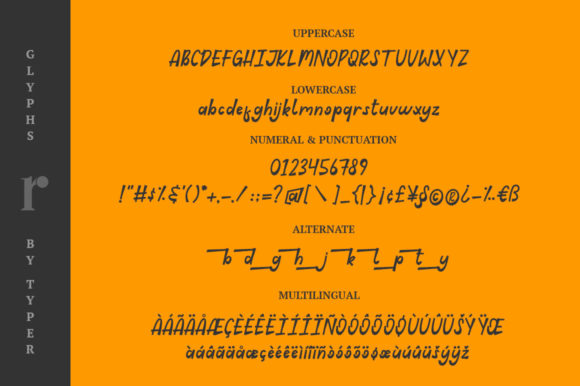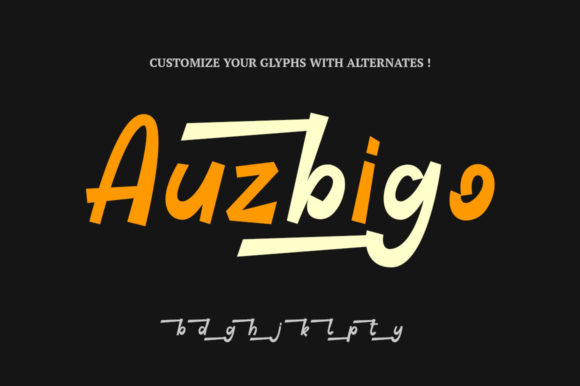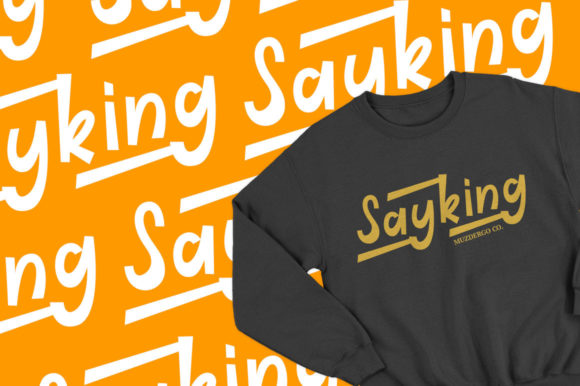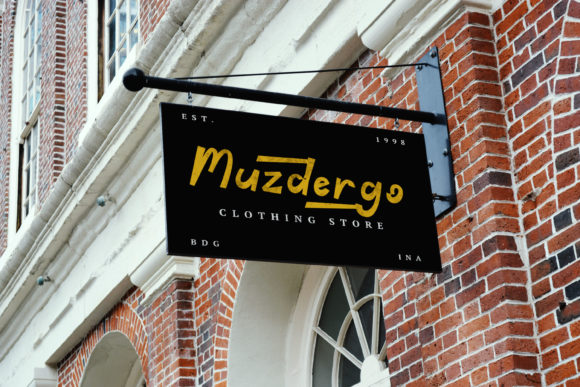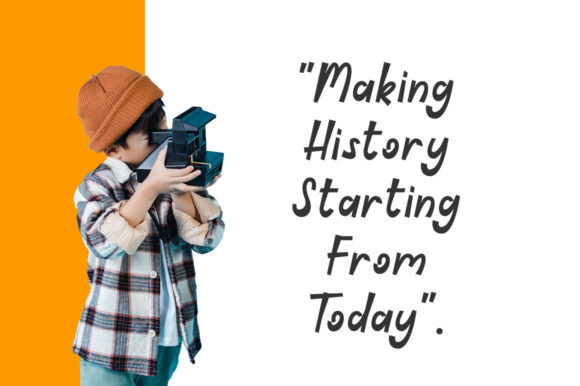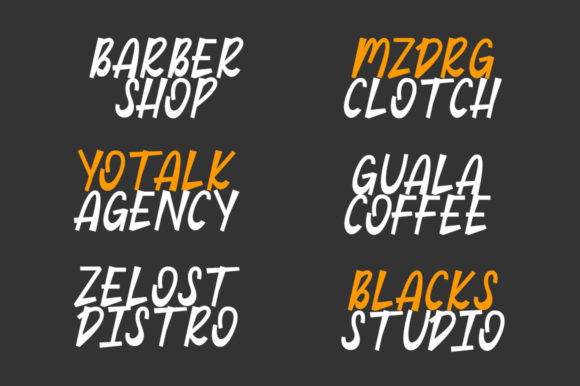
The Designer’s Delight: Auzbigo Font
I’ll never forget the time I was working on a project for a trendy boutique client, and I was stuck on finding the perfect font to match their modern and playful vibe. I scoured through countless font libraries, but nothing seemed quite right. That was until I stumbled upon Auzbigo – a game-changing display font that instantly elevated my design. In this article, I’ll share my love for Auzbigo, its features, and how to make the most of it in your designs.
An Honest Review of Auzbigo
Auzbigo is a modern and friendly display font that’s perfect for making original and outstanding designs. Here’s what I love about it:
• ✨ Unique and playful feel: Auzbigo has a distinctive personality that adds a touch of whimsy to any design.
• ✅ Highly legible: Despite its creative flair, Auzbigo remains clear and easy to read, even at smaller sizes.
• 💡 Versatile: This font works beautifully for titles, headings, and short paragraphs, making it perfect for a wide range of design projects.
While Auzbigo is an excellent font, it’s not without its quirks:
• 🤔 Limited use for body text: Auzbigo is best suited for display purposes; it’s not ideal for lengthy paragraphs or body text.
• ⚠️ Some glyphs may require manual adjustment: Depending on the design, you might need to tweak certain glyphs to achieve the perfect look.
4. Experiment with Auzbigo’s OpenType features, such as stylistic alternates, to add visual interest to your design.
The Story Behind Auzbigo
Auzbigo was designed by a team of creatives who wanted to craft a font that would bring a sense of friendliness and approachability to designs. Inspired by modern typography and a passion for creativity, Auzbigo was born. Its unique character and versatility have made it a favorite among designers and crafters.
What type of designs is Auzbigo best suited for? Auzbigo is perfect for display purposes, such as titles, headings, and short paragraphs. It’s ideal for branding, advertising, and creative projects.
Is Auzbigo available in different weights or styles? Auzbigo comes in a single weight, but its versatility and range of glyphs make it suitable for various design applications.